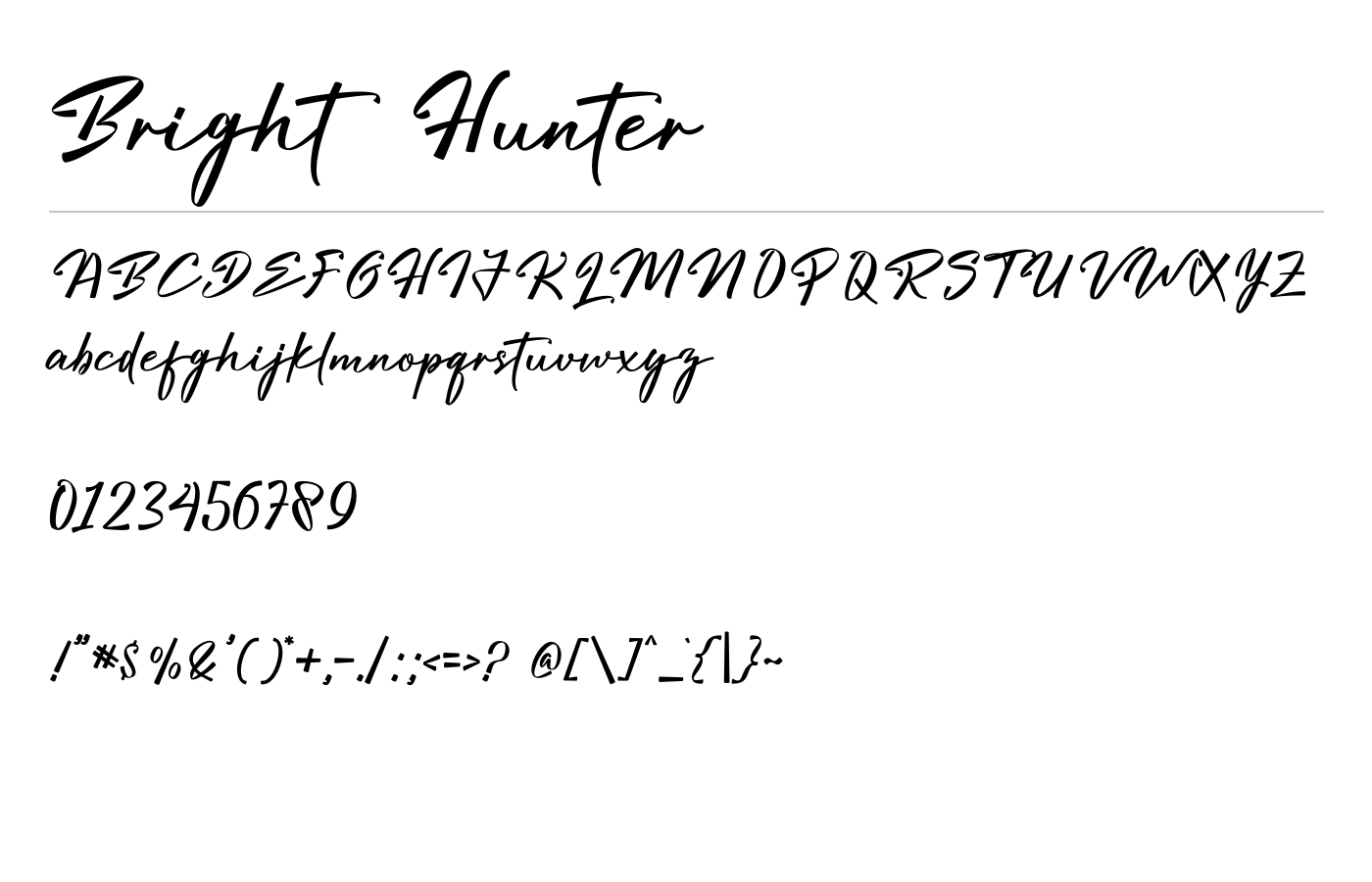
Bright Hunter is a stylish script font featuring elegant, flowing letterforms with a natural, handwritten feel. Its smooth, slightly condensed strokes and moderate contrast create a modern yet approachable look, perfect for adding a personal touch to branding, invitations, and creative designs. This font works best in logos, headlines, and decorative text where a sophisticated, friendly style is desired.
Bright Hunter Font
About Bright Hunter Font